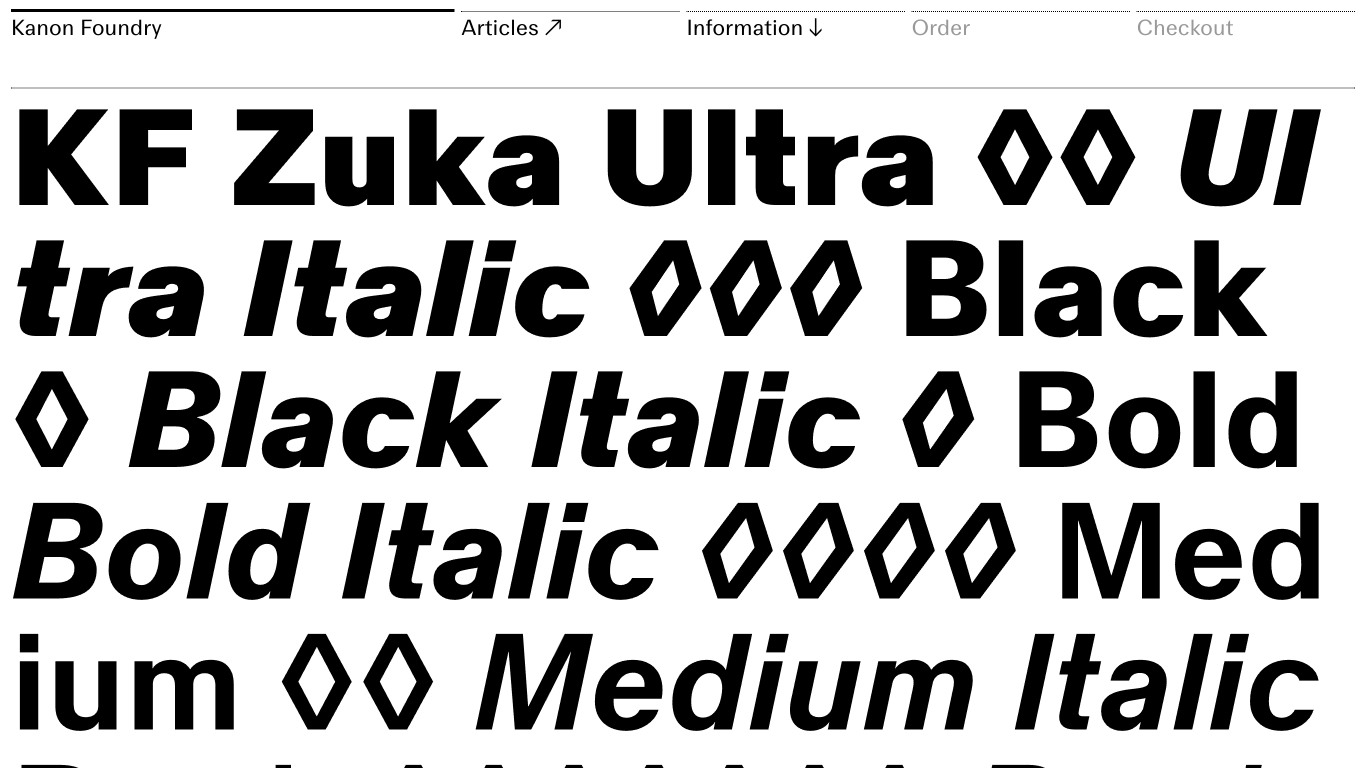
Kanon Foundry
Sweden
2019
​Kanon Foundry is a digital type foundry established in 2019 by type designers Alexander Örn and Tor Weibull in Malmö, Sweden. The foundry specializes in creating retail and custom typefaces, emphasizing research and conceptual thinking in their design approach. Notable typefaces include KF Zuka, Diagol Grotesk, Operand, and Hedvig Letters—each blending historical nuance with contemporary design, often for bespoke branding.